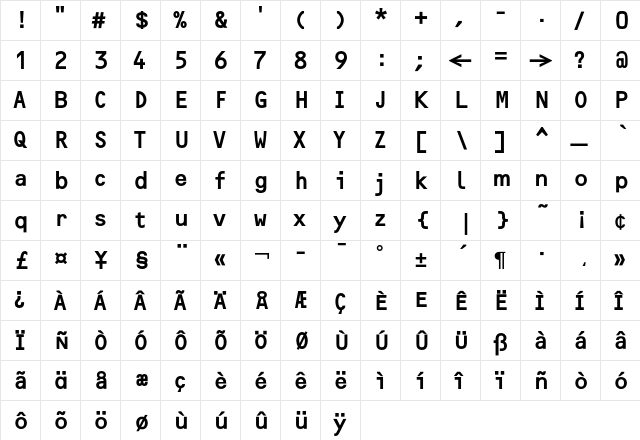
F2FOCRBczyk LT Std Regular Bold
| Foundry | Linotype Library GmbH |
| Designer | Alexander Branczyk |
Design Context for F2FOCRBczyk LT Std Regular Typeface
F2FOCRBczyk LT Std Regular offers clean, dependable letterforms without strong stylistic allegiance, making it a practical choice for designers who need flexibility. The heavy weight commands attention and anchors typographic hierarchies.